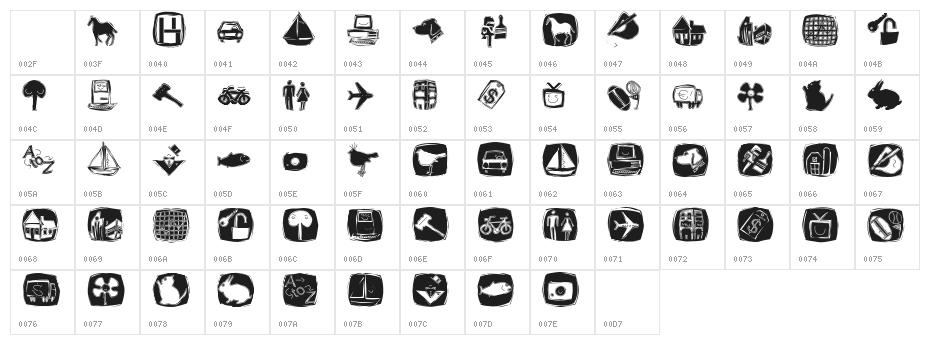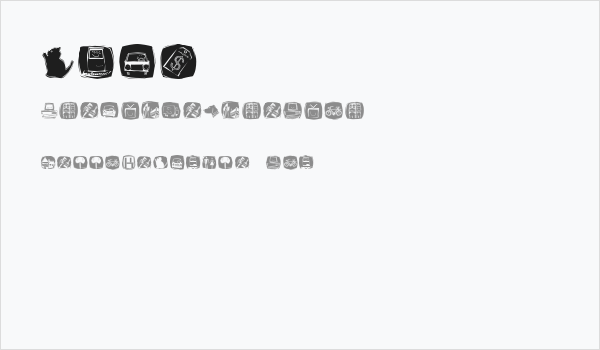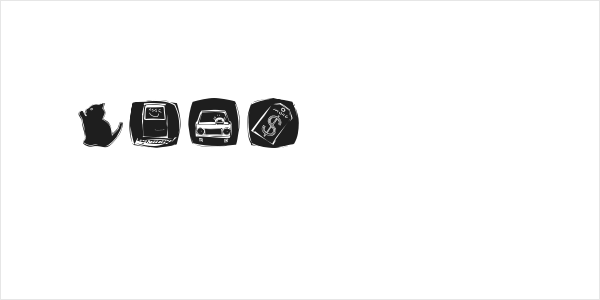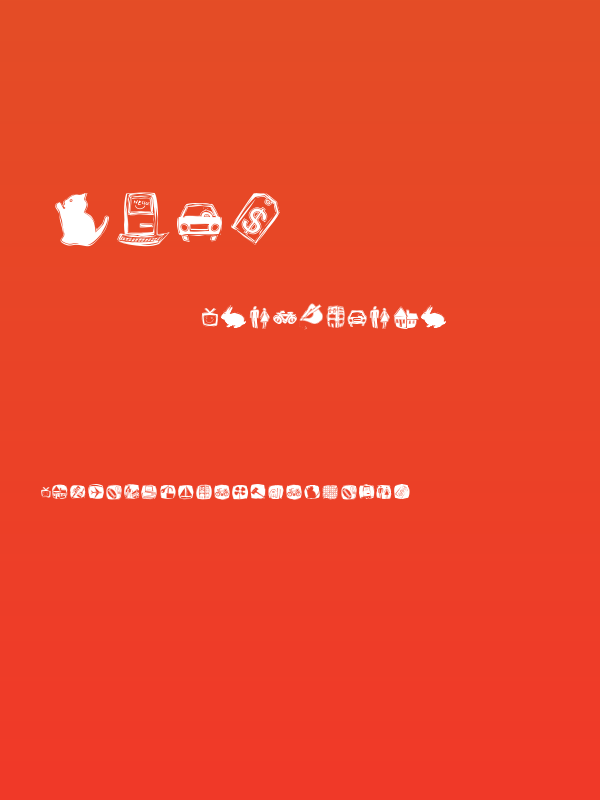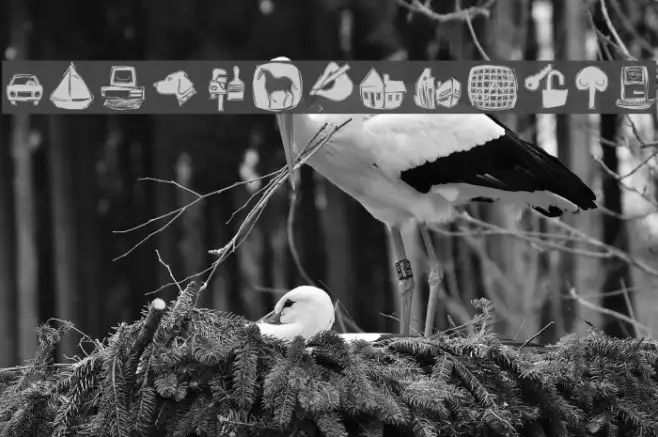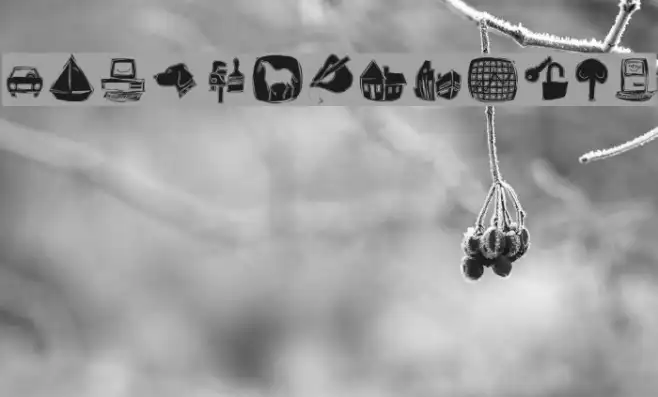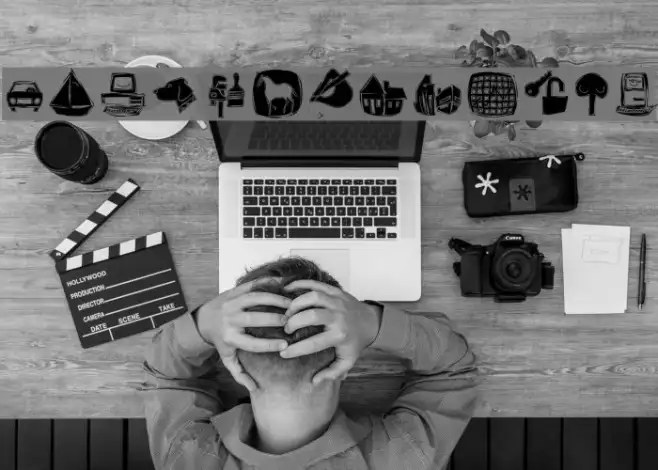
Xmas2002 Font
Xmas2002 Description
A playful, hand-drawn dingbat font featuring various pictograms such as vehicles, animals, objects, and symbols, each enclosed in a rough, irregular square or circle. The icons have a sketchy, informal style with uneven linework and a whimsical feel.
| Overall Style | Decorative, Playful, Hand-drawn |
| Use Case | Icons, Decorative elements, Themed graphics |
| Proposed Projects | Holiday cards, educational materials, children's books, informal infographics, party invitations, scrapbooking. |